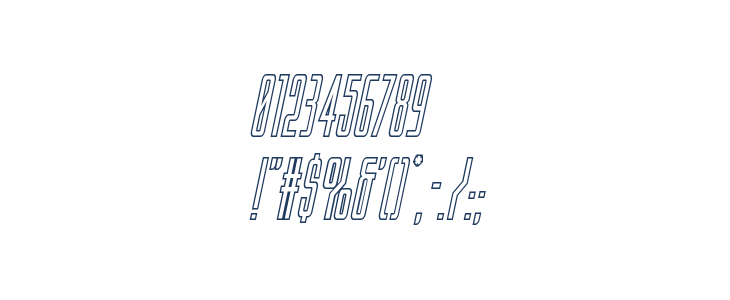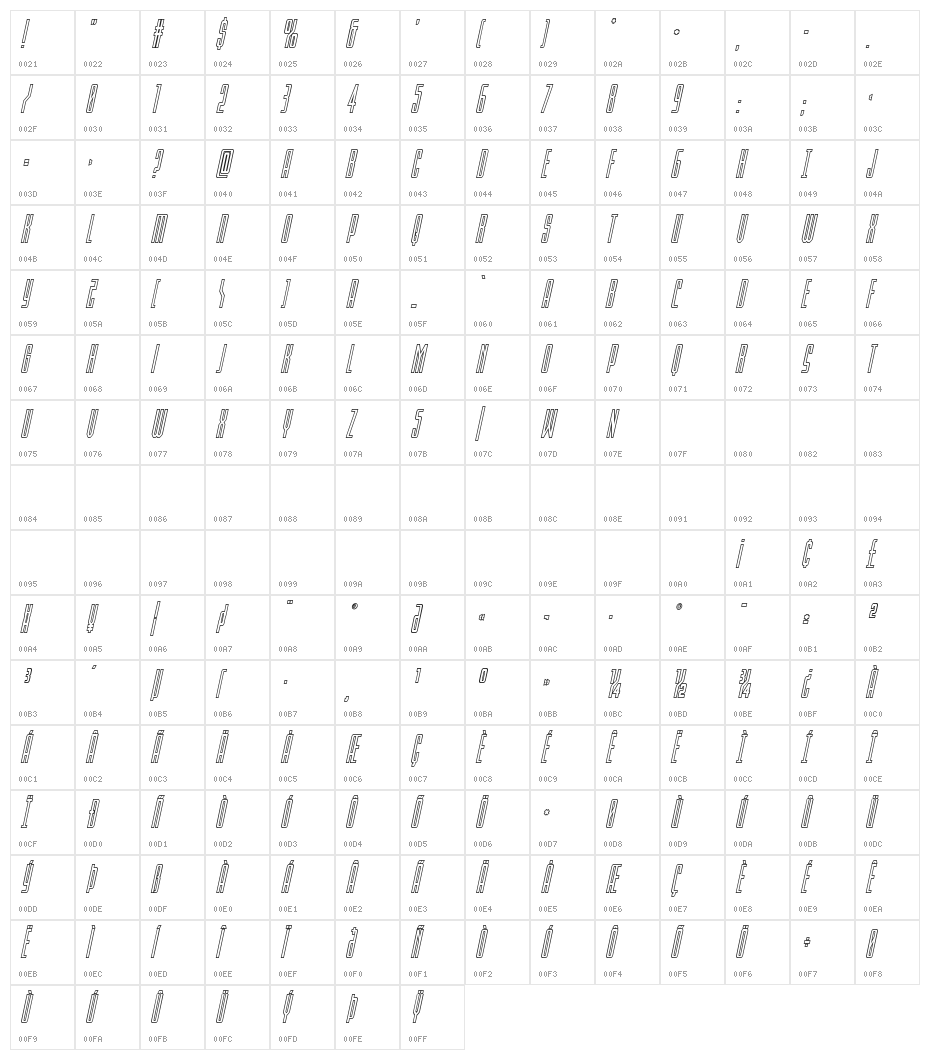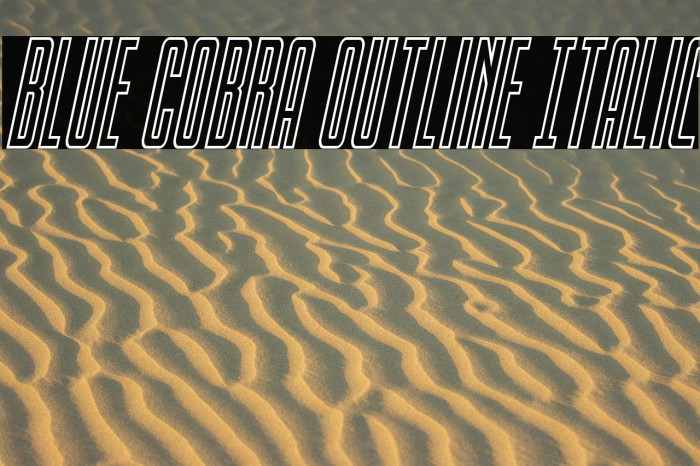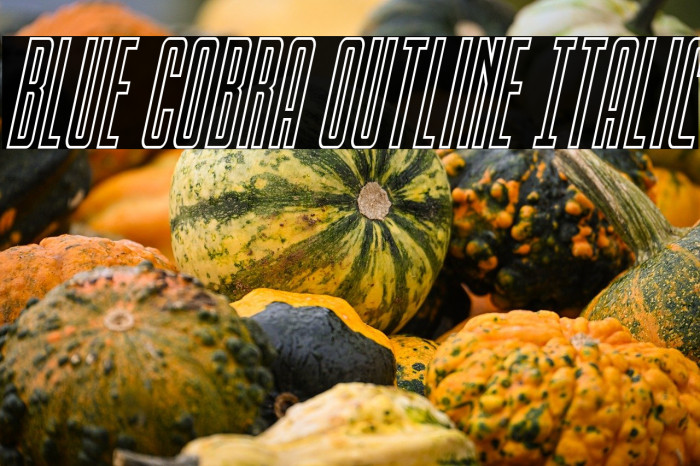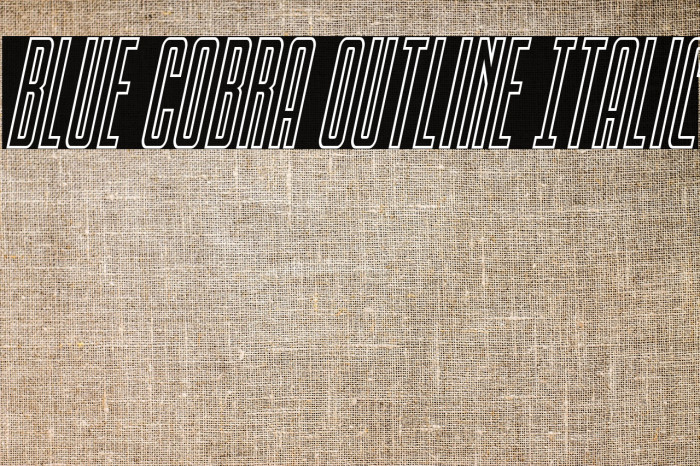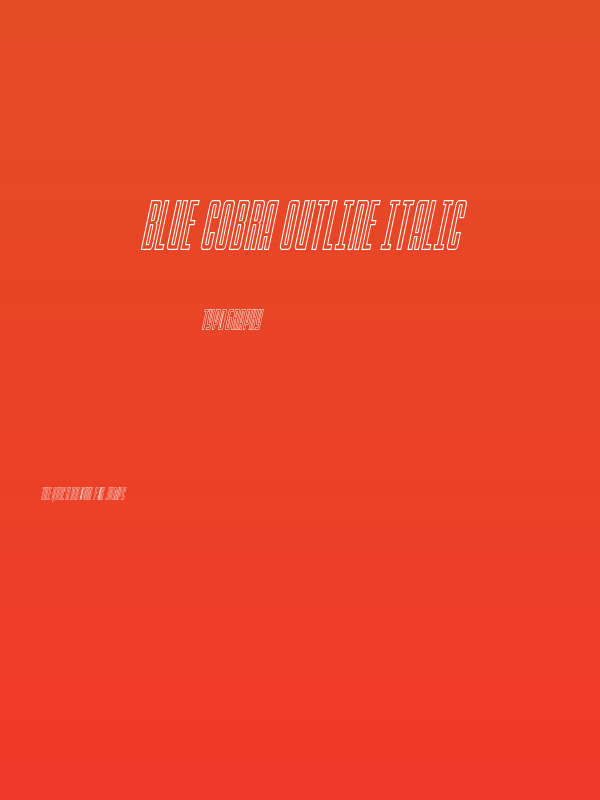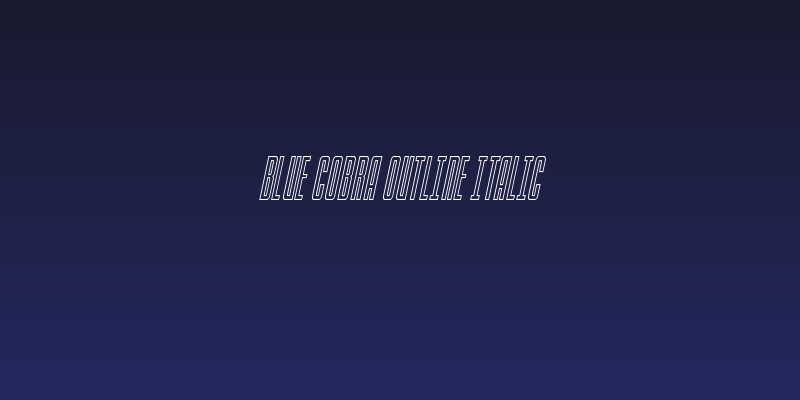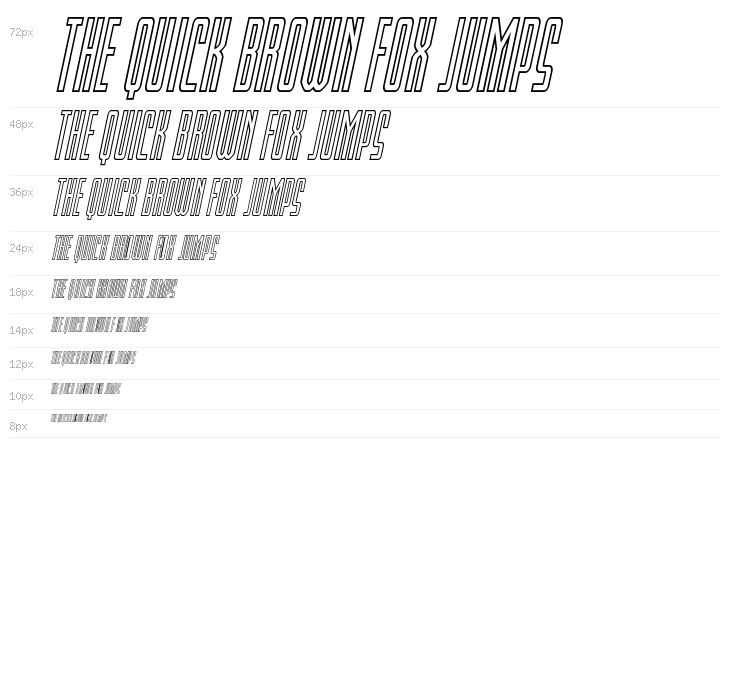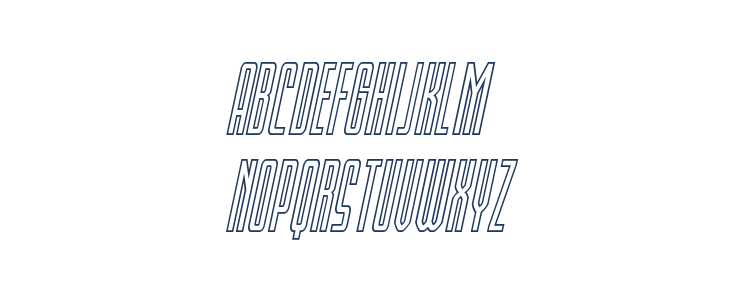
Blue Cobra Outline Italic Font
Blue Cobra Outline Italic Description
This font features a bold, italicized outline style that gives it a dynamic and energetic appearance. The characters are elongated and slightly condensed, with a distinct slant that enhances its modern and sporty look. The outline design adds a layer of depth and dimension, making it stand out in any design. The uppercase and lowercase letters maintain a consistent style, with sharp angles and clean lines. The numerals and special characters are equally bold and maintain the same italicized, outlined aesthetic, ensuring uniformity across all text elements.